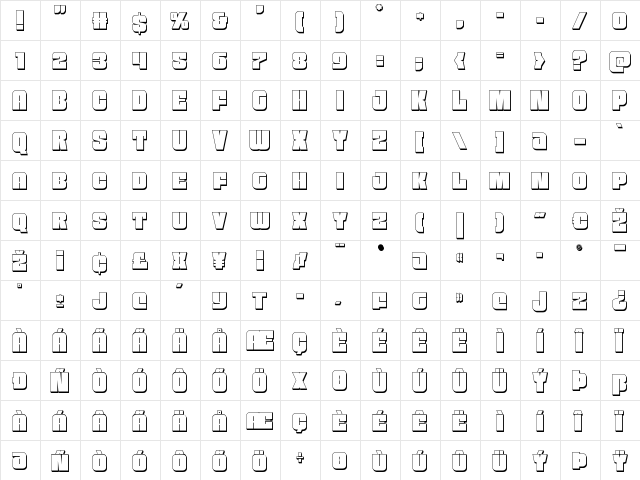
Funk Machine 3D Regular
Design Context for Funk Machine 3D Typeface
Funk Machine 3D has an approachable, lighthearted character — its loose, expressive forms are well-suited to children's content, casual branding, and fun-first design.
Font Pairing: Pairs well with a rounded or humanist sans for body copy, maintaining the friendly tone without relying on Funk Machine 3D to carry extended reading.
Pro Tip: Avoid using Funk Machine 3D for long passages of text — it works best for headlines, labels, and short calls to action.